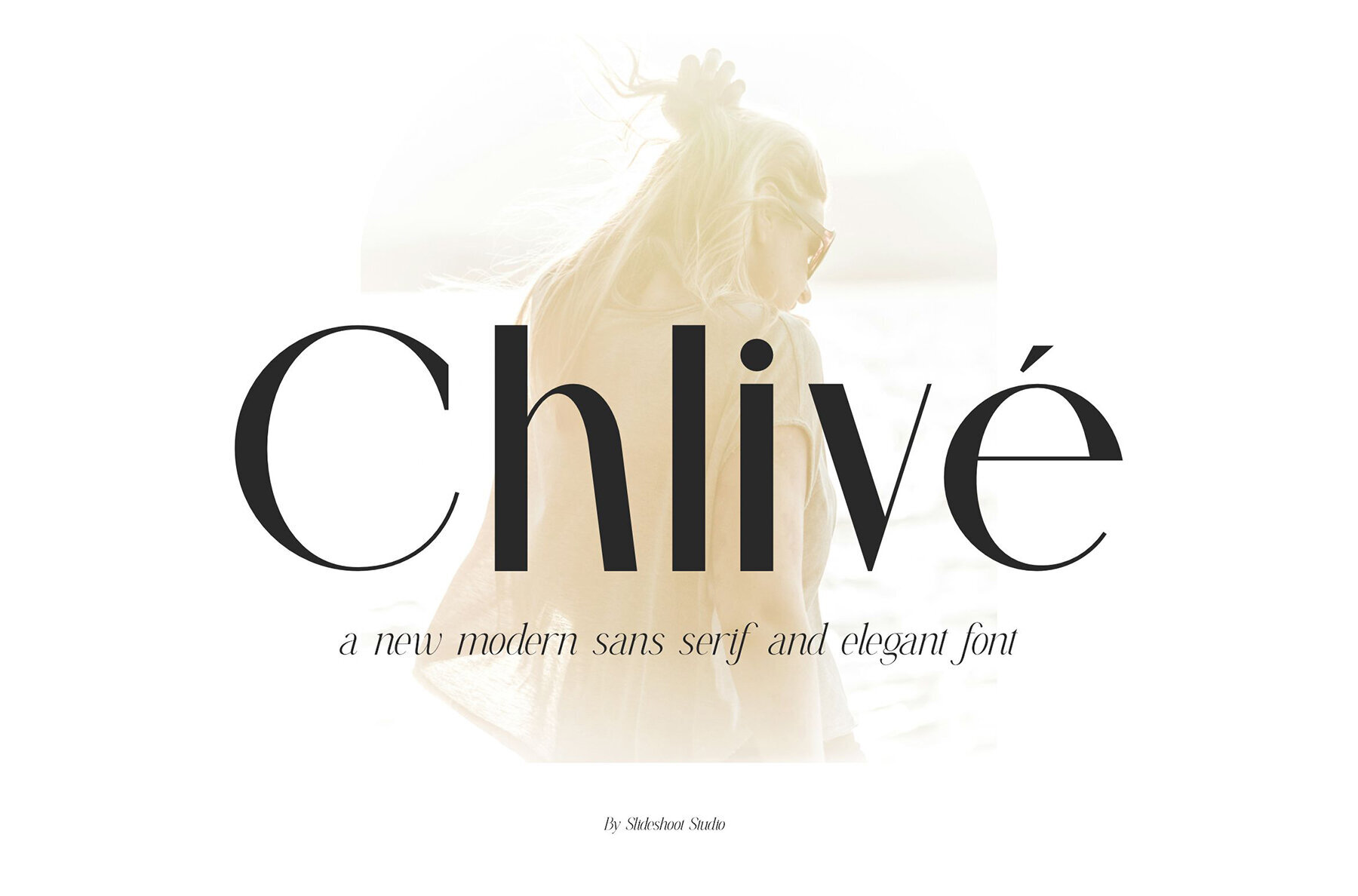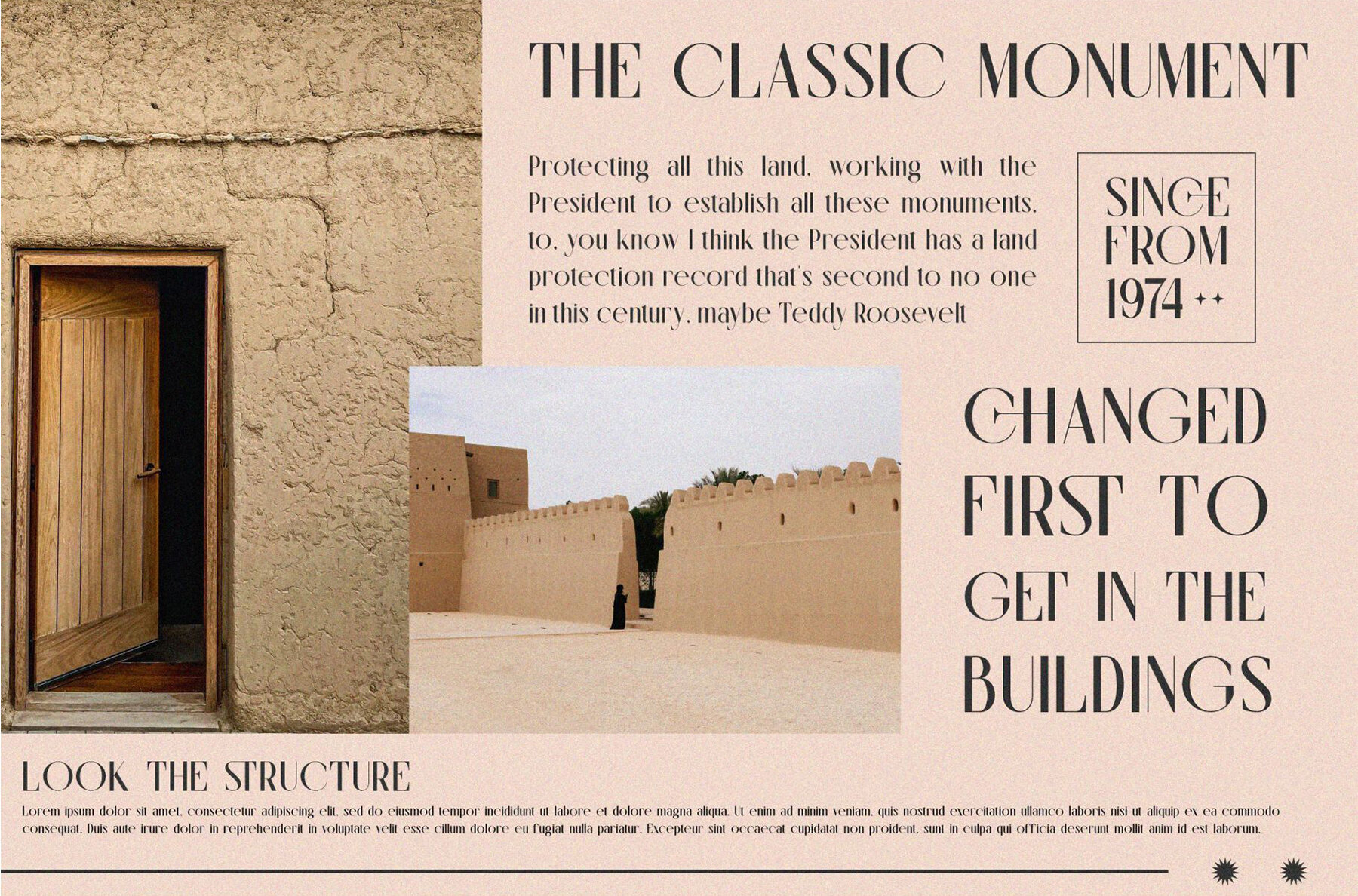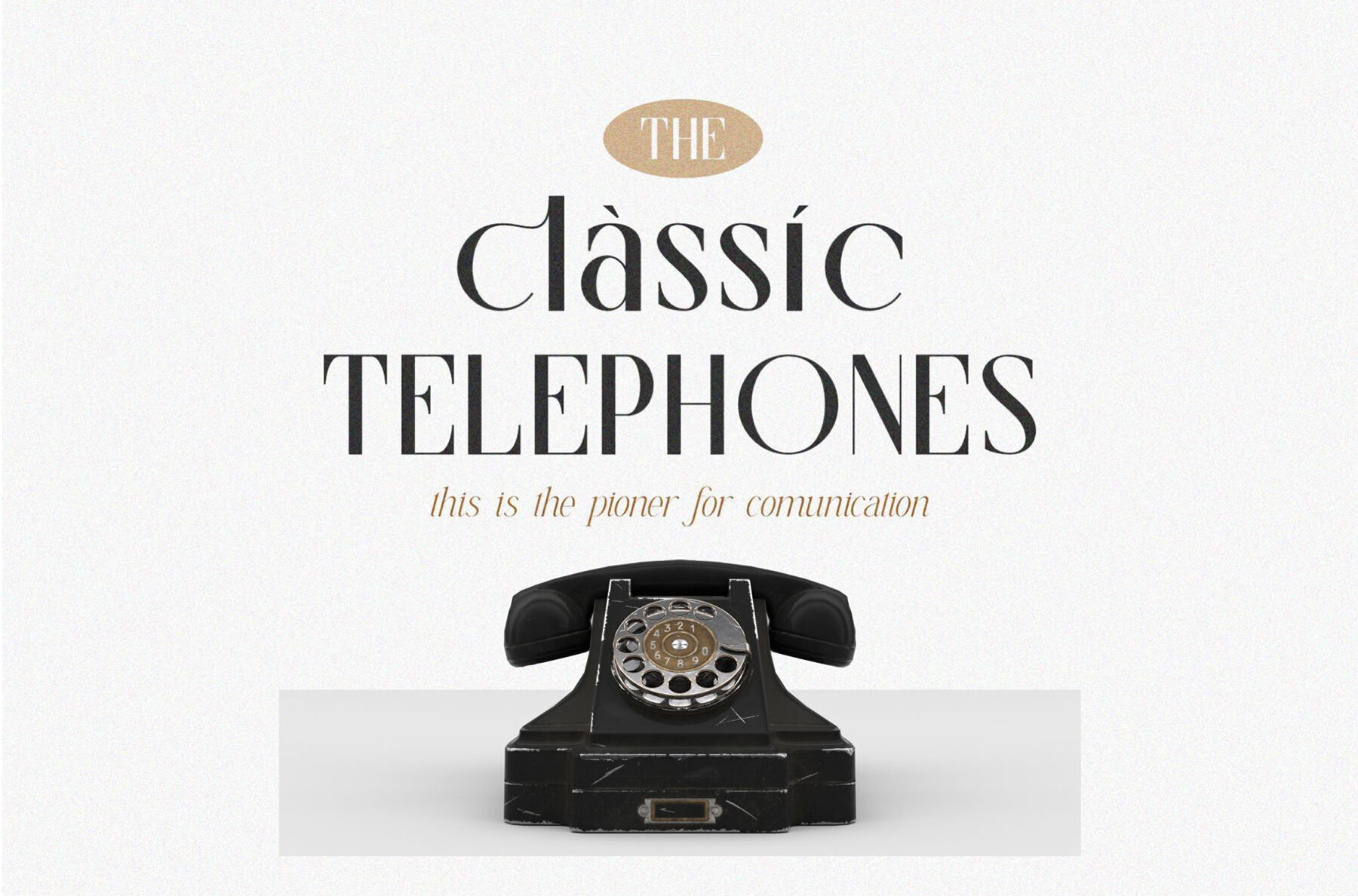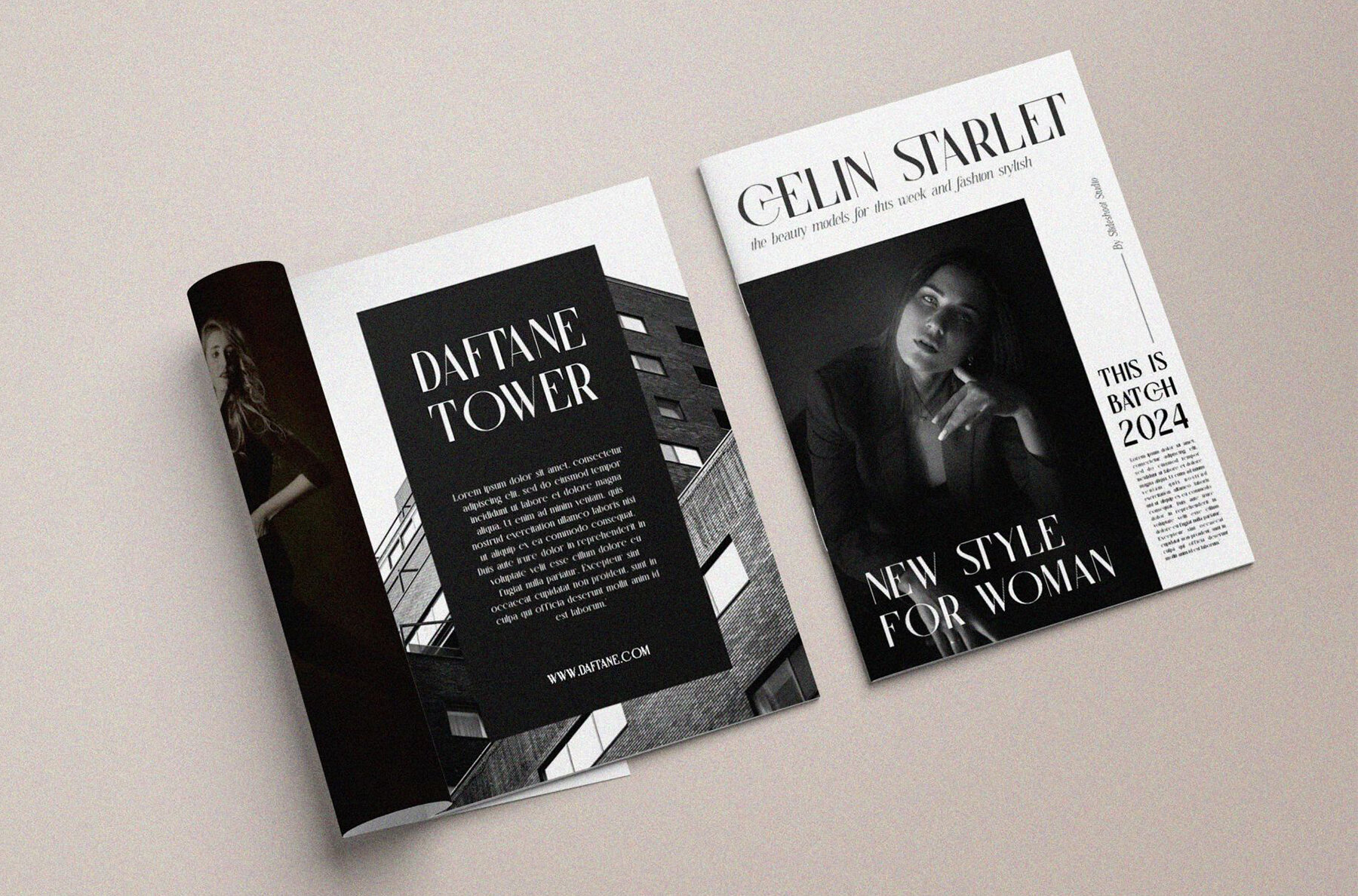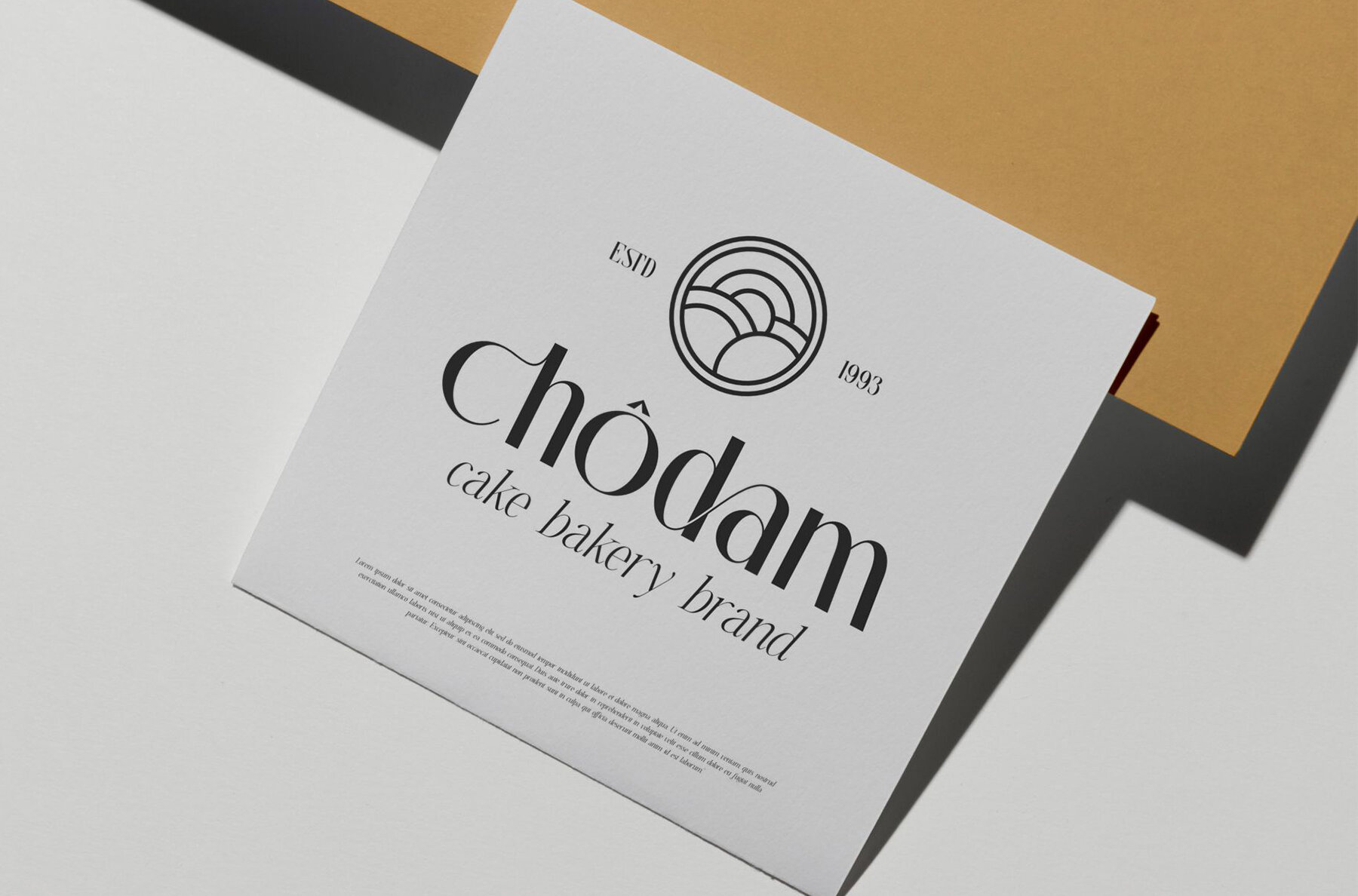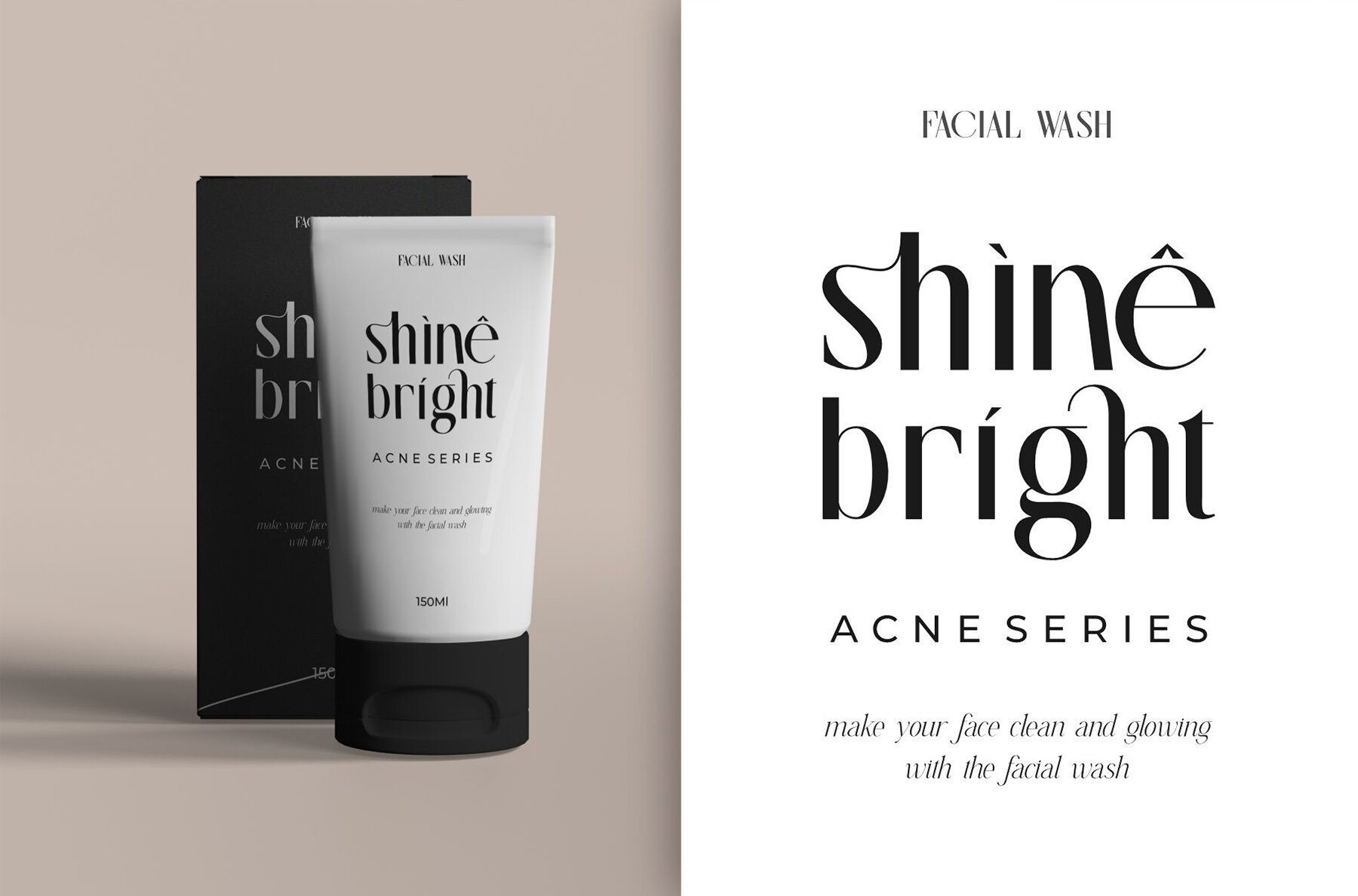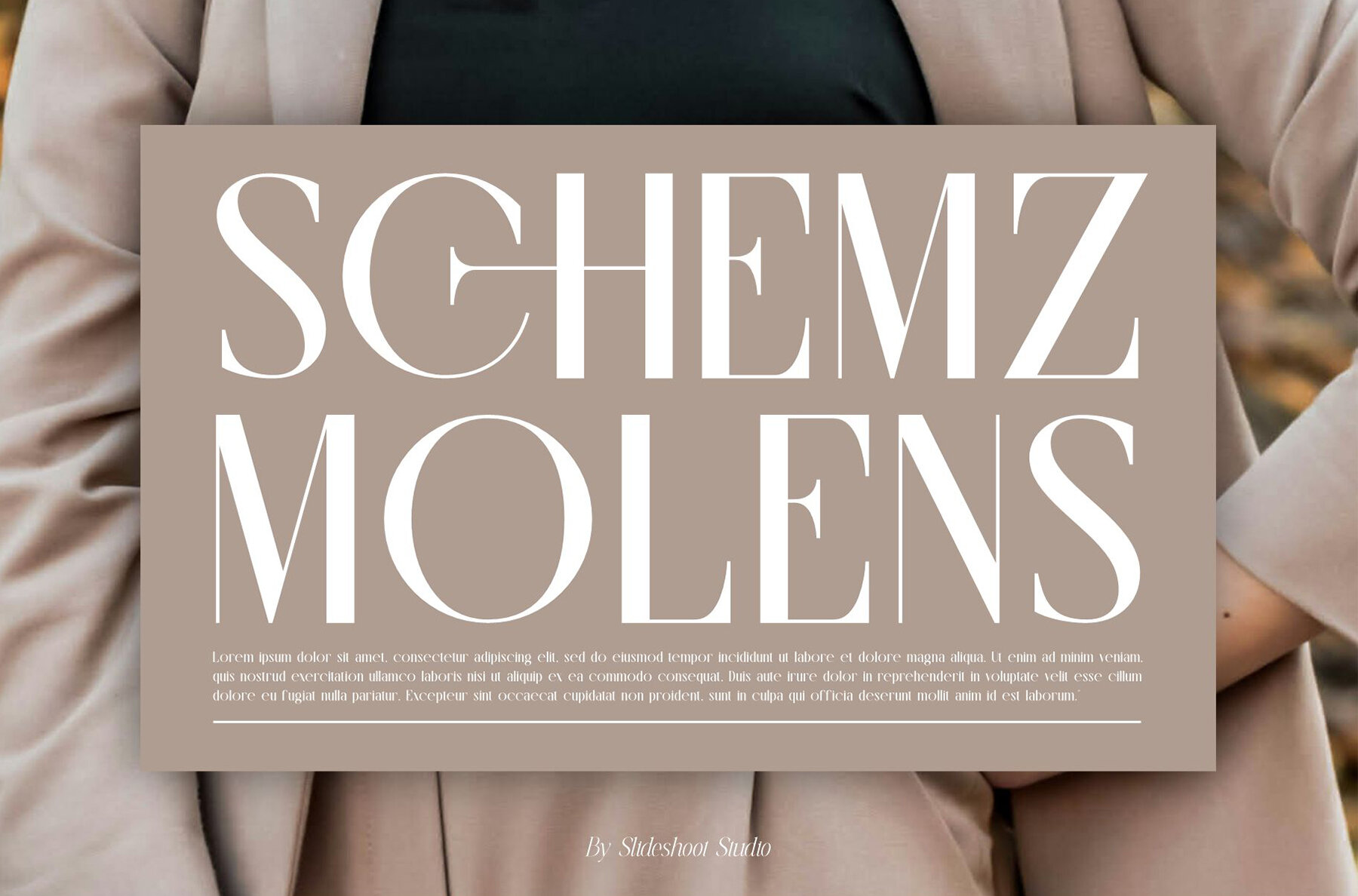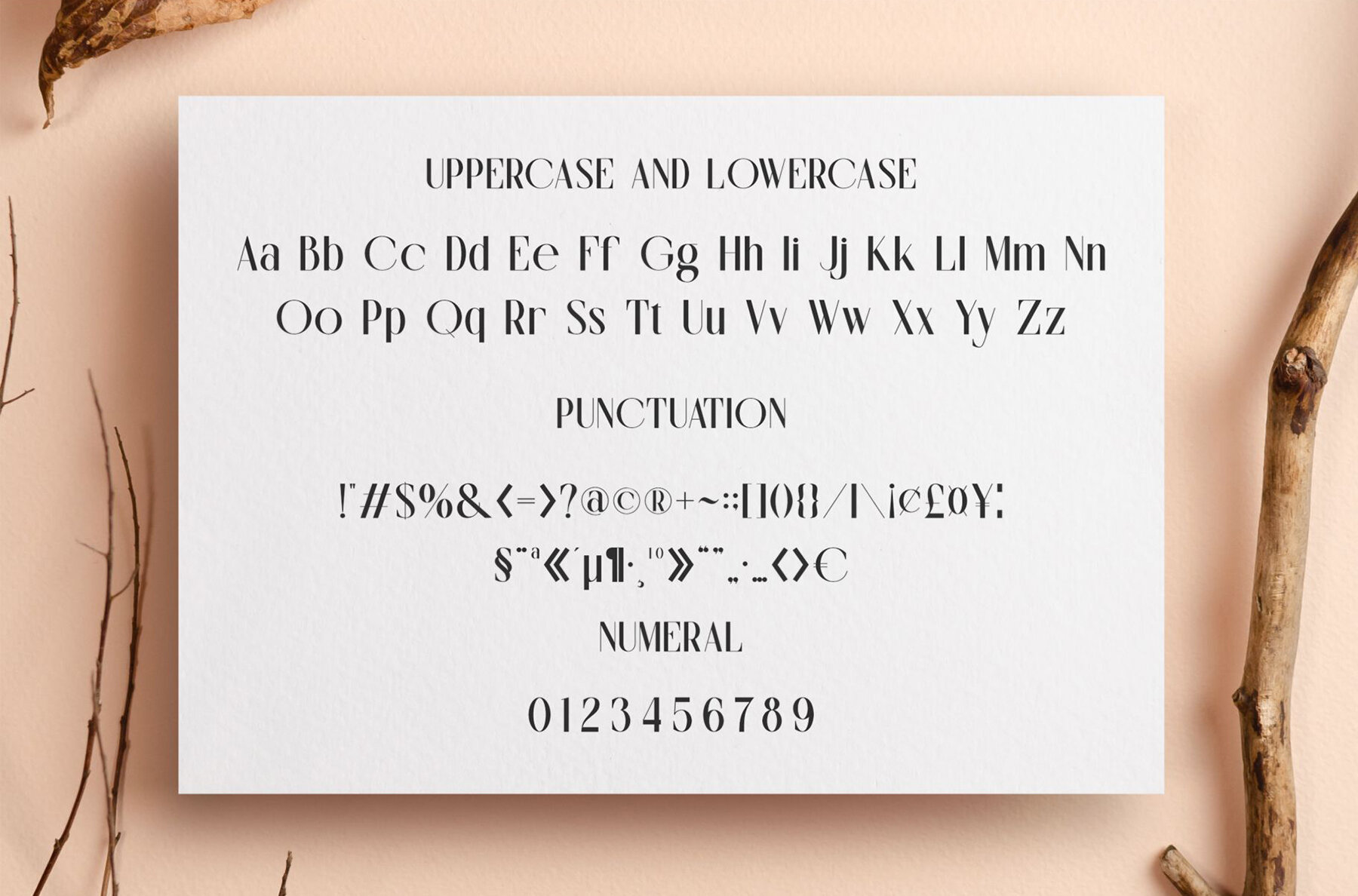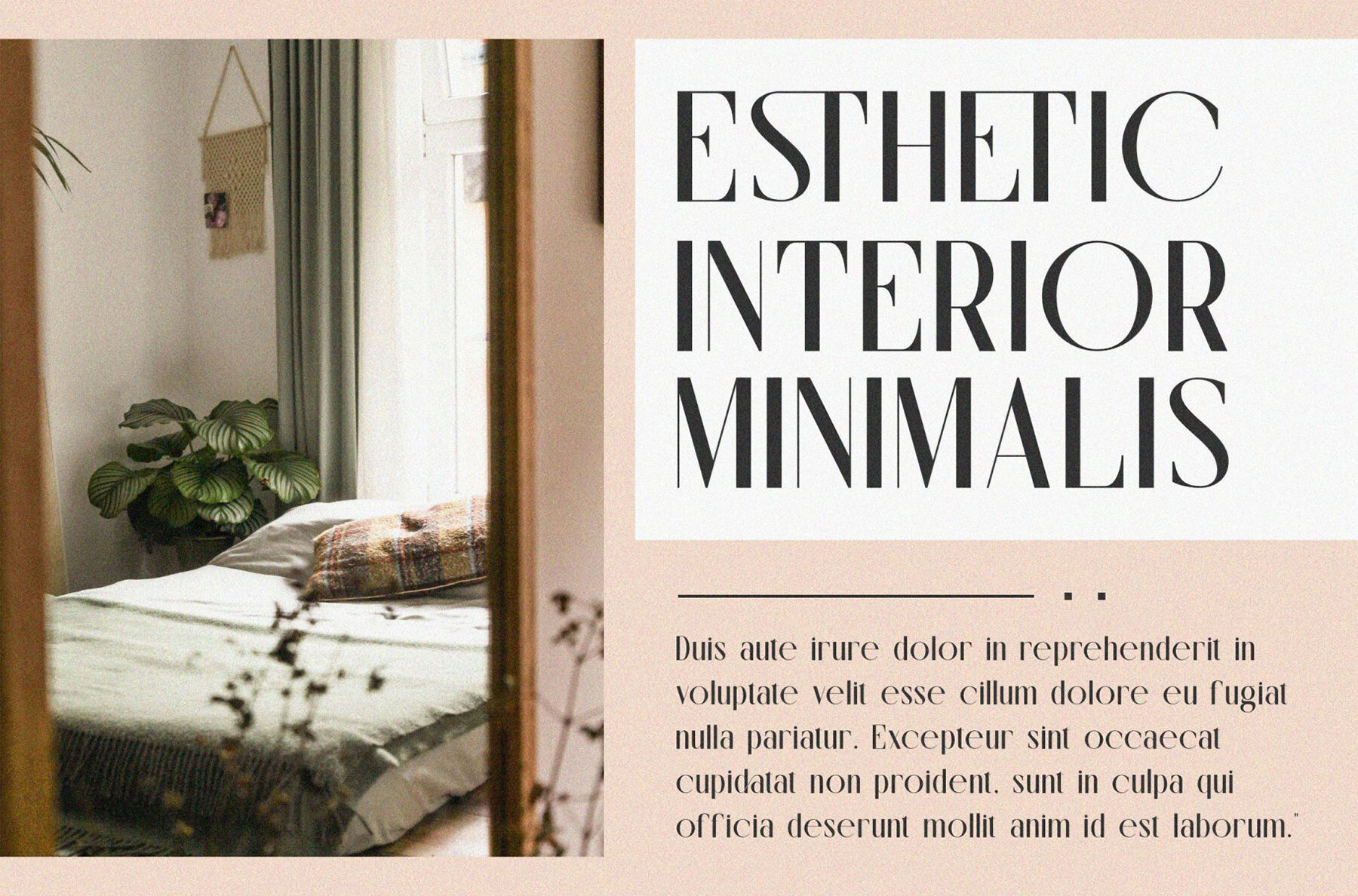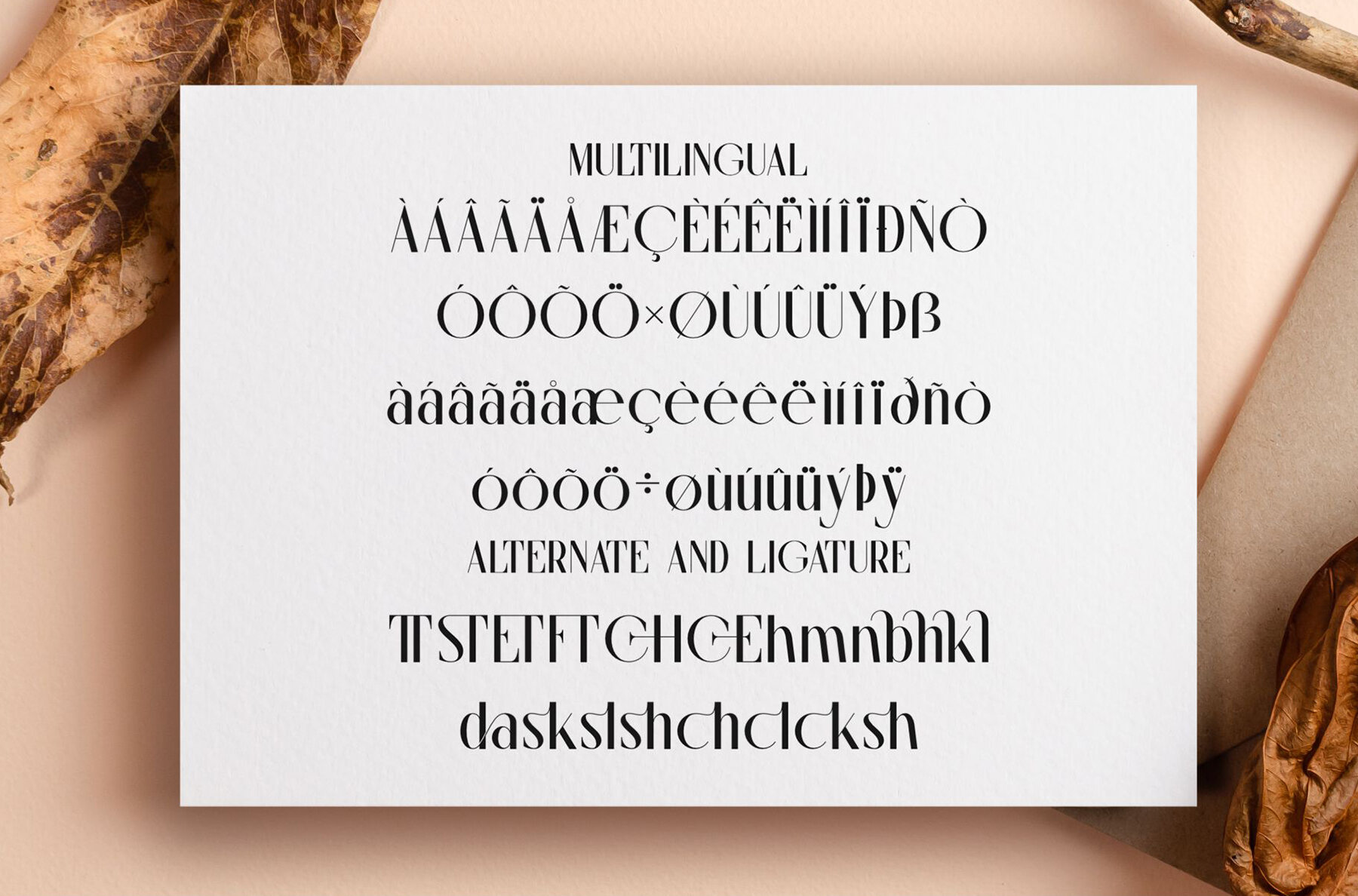
Chlive Font
Chlive Regular
Chlive is a meticulously designed sans serif font that exudes elegance and sophistication. Its balanced and stylish form makes it an ideal choice for a wide range of design projects, including invitation cards, company logos, movie titles, business cards, book titles, and brand names. The font's refined appearance naturally draws attention, enhancing the aesthetic quality of any visual work.
Notably, Chlive features stylish alterations and ligatures, adding a touch of uniqueness to your designs. It supports both uppercase and lowercase letters, as well as numbering and punctuation. Versatile and easy to install, Chlive is compatible with PC and Mac, seamlessly integrating with programs like Adobe Illustrator, Adobe Photoshop, Adobe InDesign, and Microsoft Word. Whether you're crafting new visuals or enhancing existing ones, Chlive offers a sophisticated touch with its refined design elements.